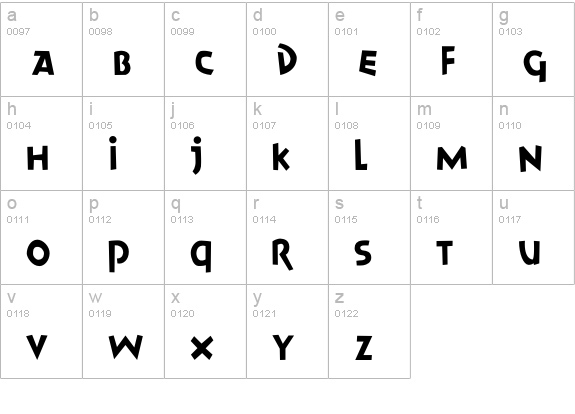
Goliath font is a bold and striking typeface that exudes power and presence. With its thick, sturdy letterforms and commanding appearance, Goliath is perfect for making a statement in any design project. This versatile font is ideal for headlines, posters, logos, and any other application where you want to grab attention and leave a lasting impression. What's even better is that Goliath font is completely free to download at FontsMarket.com. You can easily access this impressive typeface and enhance your designs with its impactful aesthetic. Don't miss out on the opportunity to add Goliath font to your font library and take your creations to the next level. Download it today and unleash the strength and boldness of Goliath in your designs.